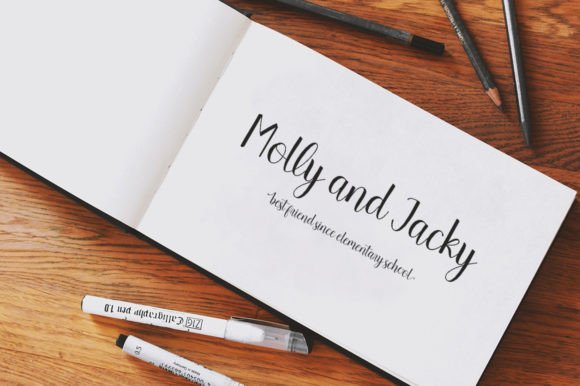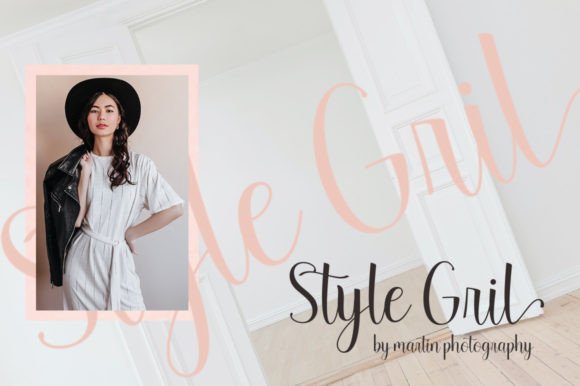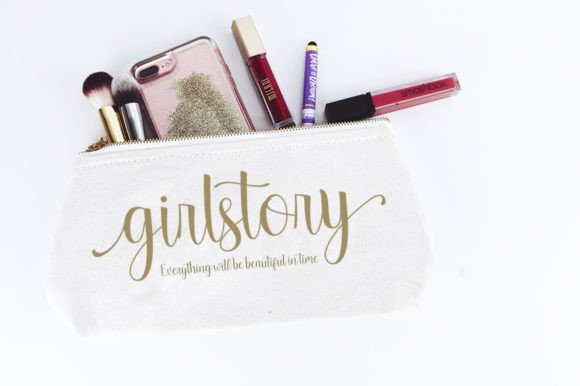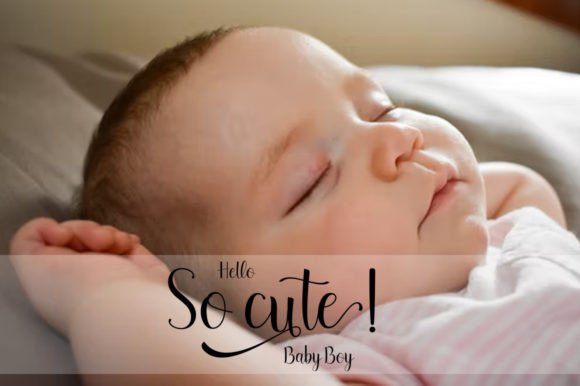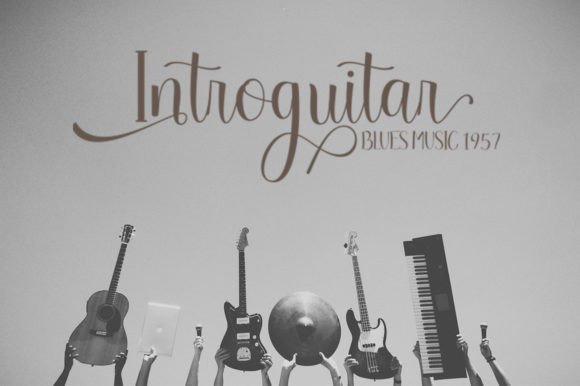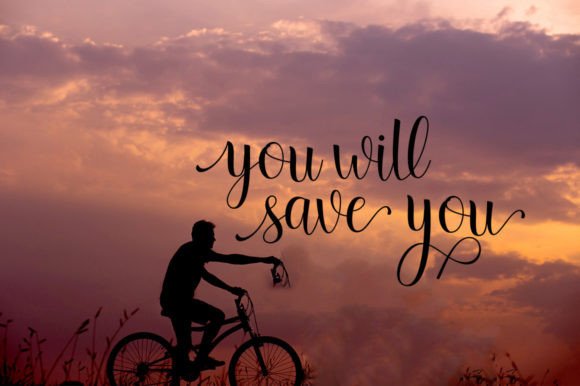
When Words Become Art
Do you ever find yourself scribbling in a journal, trying to capture the essence of a moment or a feeling? Maybe it’s a heartfelt letter to a loved one, or a sketch of a beautiful sunset. Whatever it is, there’s something special about putting pen to paper and watching your words come to life. For designers, this feeling is amplified when working with the right tools – and that’s where April Font comes in.
April Font is a beautiful, handwritten script font that’s as versatile as it is romantic. Whether you’re creating a wedding invitation, a birthday card, or a headline that grabs attention, this font is sure to add a touch of magic to your project. Its wide range of applications makes it a valuable asset for designers who want to bring a personal touch to their work.
April Font Key Features
- Unique Characteristics: April Font features a unique, elegant script design with flowing connections and subtle flair, making it ideal for creative and artistic applications.
Designer Review: April Font
Overall, I found the April Font to be a delightful addition to any design project.
- Beautiful Calligraphy-Style Letters: The font’s elegant script is perfect for creating a luxurious feel in your designs.
- Highly Versatile: April Font works well in a variety of contexts, from invitations and wedding stationery to branding and marketing materials.
- Excellent Legibility: The font’s clear lines and precise letterforms make it easy to read, even at smaller sizes.
Limited Options ⚠️
- Limited Character Set: April Font only includes a limited character set, which may not be ideal for projects that require a wide range of special characters.
- No Numerals: The font does not include a set of numeral characters, which can be a limitation in certain design contexts.
- Not Suitable for Body Text: While the font is beautiful, it may not be the best choice for body text due to its elegant and decorative nature.
While the April Font has some limitations, its unique charm and versatility make it a great choice for designers who want to add a touch of elegance to their projects.
For the most out of the April Font, use it for:
– Titles and headings to add a touch of elegance.
– Branding materials, such as logos and business cards.
– Social media graphics and advertisements.
– Wedding invitations and other special occasion materials.